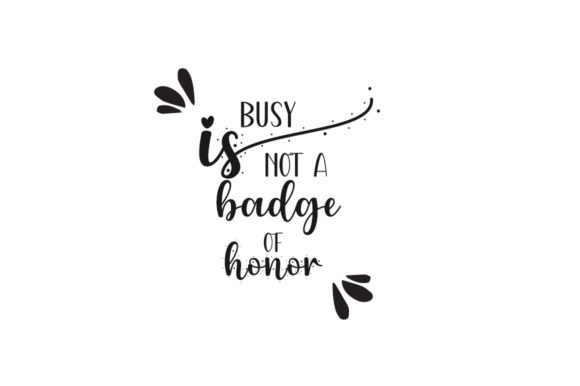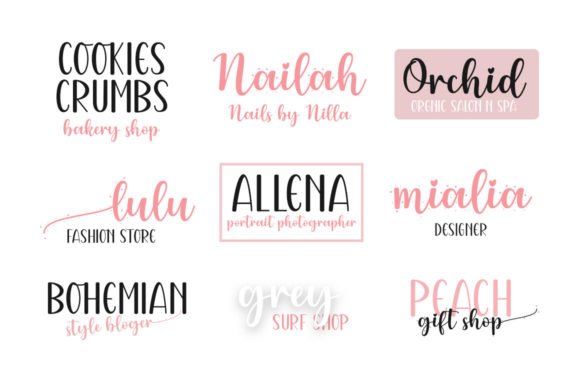
Pinkish Pink Font
db-ku.com - Script & Handwritten -- Pinkish Pink is a lovely duo font (sans serif and script). Featuring characters that dance along the baseline, this font will add a luxury spark to any design project that you wish to create!